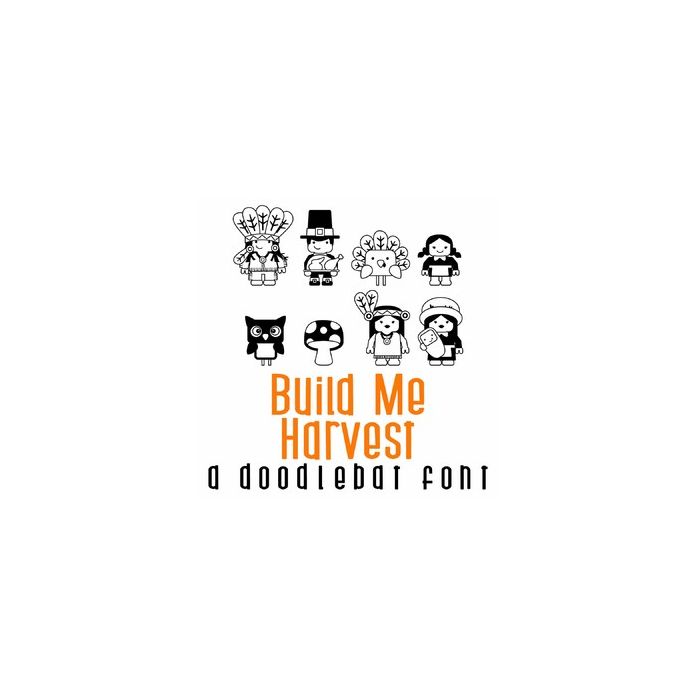
This fun doodlebat font features 26 building block characters ready for Thanksgiving. Perfect for cards, crafts, parties, gifts, decor, planner stickers, scrapbook pages and more!